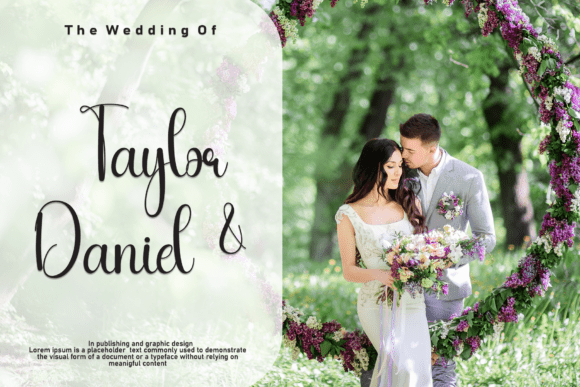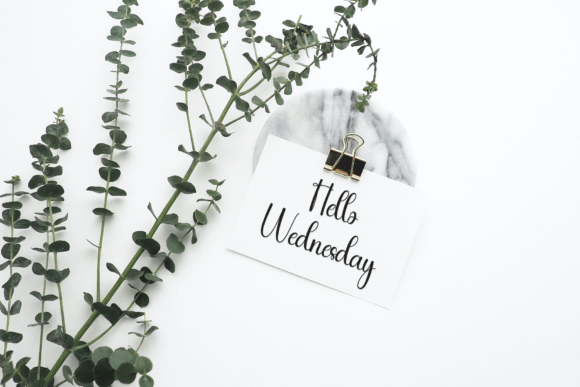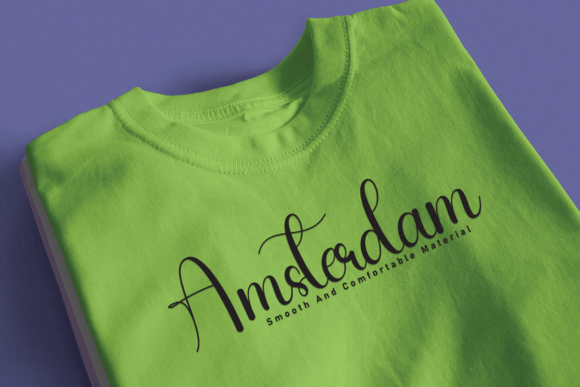
Introduction to Panda Font
Panda is a stylish script font that exudes elegance and modern charm.
Featuring fluid strokes, graceful curves, and carefully balanced letterforms, it captures the beauty of hand-drawn calligraphy with a contemporary edge Ideal for logos, invitations, packaging, and social media graphics, it adds a touch of sophistication and personality to any design.